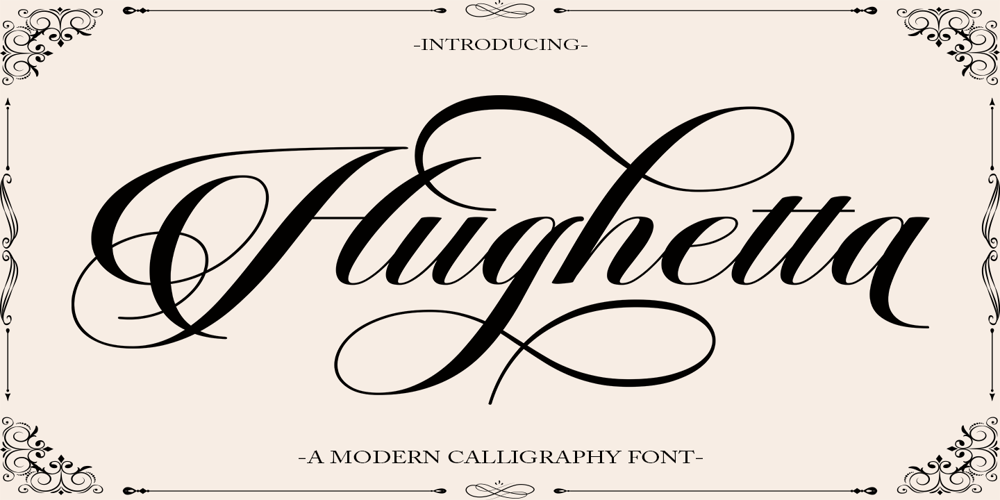
Hughetta
Hughetta font
Hughetta Font Family was designed by Has Rizal and published by Hrz Studio. Hughetta contains 1 styles and family package options. Hughetta is the font of choice for writing things beyond words. This typeface is designed with great detail to convey stylish elegance. So, it can be said, the character of the transformation is very beautiful, a kind of classic ornamental copper script.Hughetta provides alternative variants of most fonts, binders and many calligraphy tips, ideal for elegant labels, high-end packaging, stationery and composition for select brands, beautiful titles, paragraphs, fonts and short text, meant to be read only with eyes or meant to whisper into someone’s ear.Hughetta has 368 , including multiple language support. It features OpenType with alternative styles and elegant binding. The OpenType features don’t work automatically, but you can access them manually and for best results your creativity will be required in combining variations of these Glyphs. And also a touch of ornament makes this font look elegant.To enable the OpenType Stylistic alternative, you need a program that supports OpenType features such as Adobe Illustrator CS, Adobe Indesign & CorelDraw X6-X7, Microsoft Word 2010 or a later version. (Windows), Font Book (Mac) or a software program such as PopChar (for Windows and Mac).How to access all alternative characters using Adobe Illustrator:https://www.youtube.com/watch?v=XzwjMkbB-wQHow to use the font style set in Microsoft Word 2010 or later versions:https://www.youtube.com/watch?v=NVJlZQ3EZU0There are additional ways to access alternatives/swashes, using the Character Map (Windows), Nexus Font (Windows) Font Book (Mac) or a software program such as PopChar (for Windows and Mac).How to access all alternative characters, using the Windows Character Map with Photoshop:https://www.youtube.com/watch?v=Go9vacoYmBwIf you need help or advice, please contact me by emailThank you for watching!